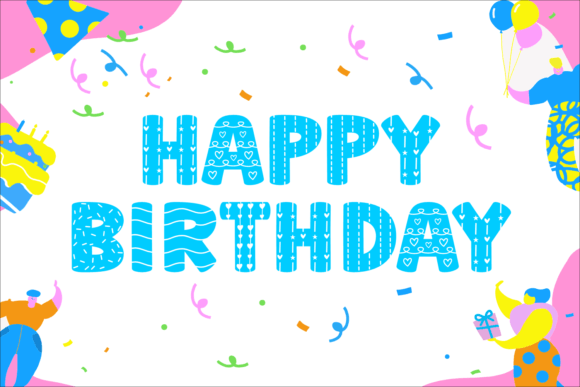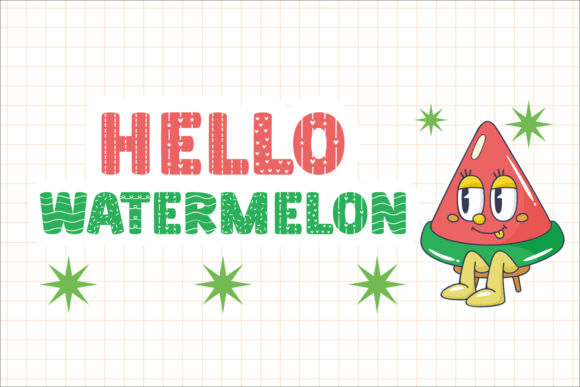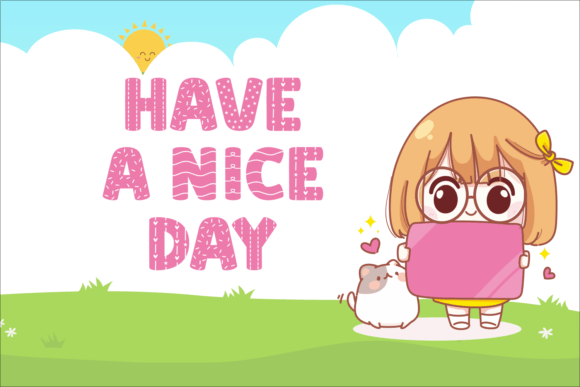
Lora Cute Font: A Playful Display Font for Birthday & Craft Designs
About the Lora Cute Font
Presenting Lora Cute Font, a unique and stylish typeface that will make your work stand out. Lora Cute is a whimsical decorative font capable of filling your designs with cheerfulness! Try it on children-related projects, sweets packaging, or anything that needs a youthful vibe.
Its playful, rounded forms make Lora Cute ideal for headlines, short text blocks on packaging, and children’s book illustrations. It works well for branding projects targeting a young, fun audience, such as toy stores or ice cream parlors. However, its decorative nature makes it unsuitable for body text or UI elements where legibility is paramount. Avoid using it for large amounts of text.
Pairing Lora Cute with a clean sans-serif like Open Sans for body copy provides excellent contrast and readability. For a more sophisticated feel, consider pairing it with a delicate serif font such as Playfair Display for headings and subheadings. Avoid pairing it with other highly decorative fonts, as this could create visual clutter.
Lora Cute possesses a friendly, approachable personality. Its whimsical charm makes it perfect for projects needing a lighthearted, joyful aesthetic.
Lora Cute Font Usage Examples
Lora Cute Font Example